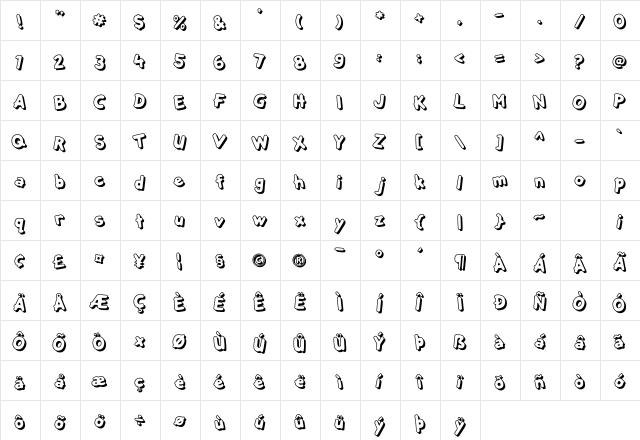
Bubblee Kids Shadow Random Regular
Design Context for Bubblee Kids Shadow Random Typeface
Bubblee Kids Shadow Random has an approachable, lighthearted character — its loose, expressive forms are well-suited to children's content, casual branding, and fun-first design.
Font Pairing: Pairs well with a rounded or humanist sans for body copy, maintaining the friendly tone without relying on Bubblee Kids Shadow Random to carry extended reading.
Pro Tip: Use Bubblee Kids Shadow Random at larger display sizes where its expressive character can land. Pair with a clean, simple sans for body copy to maintain readability.